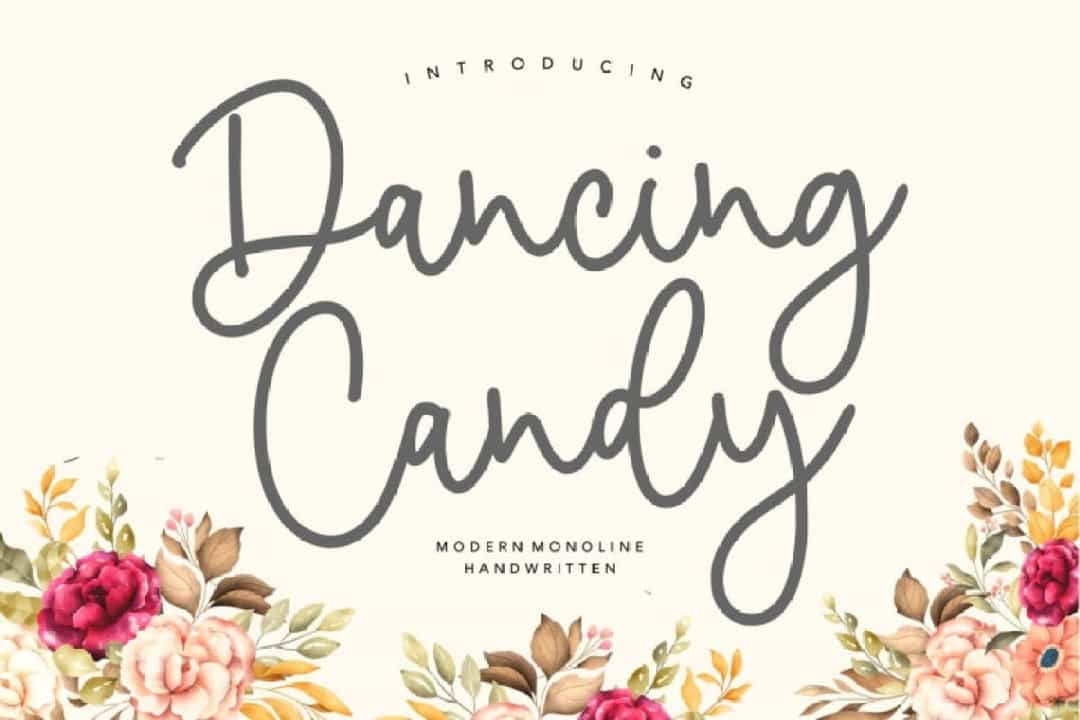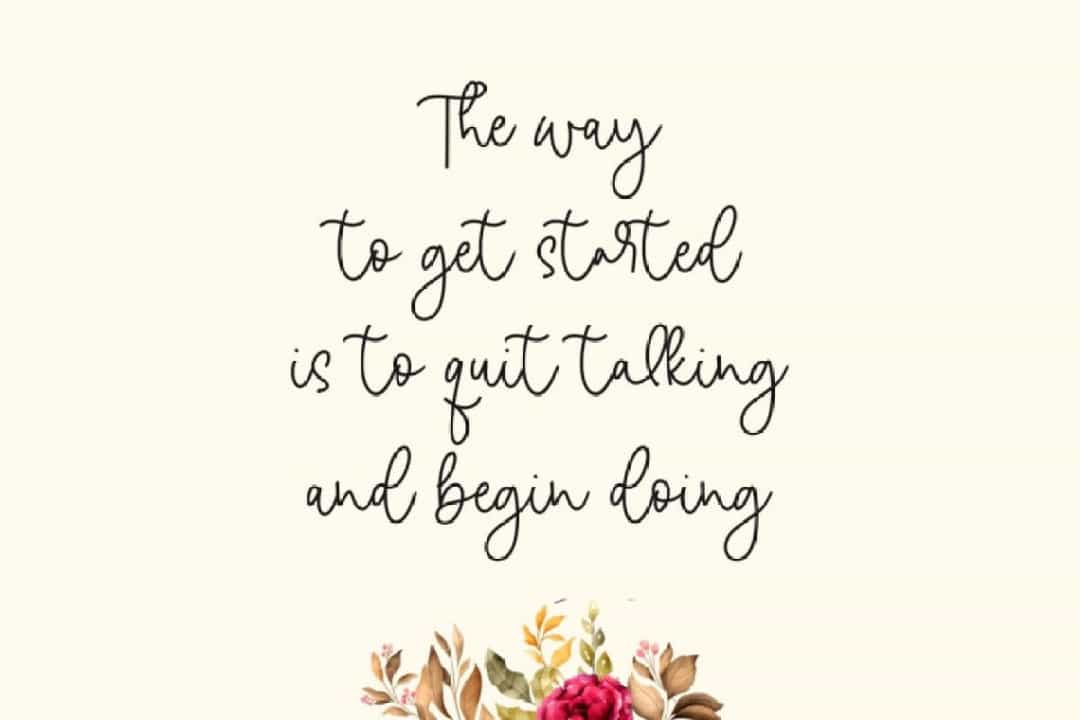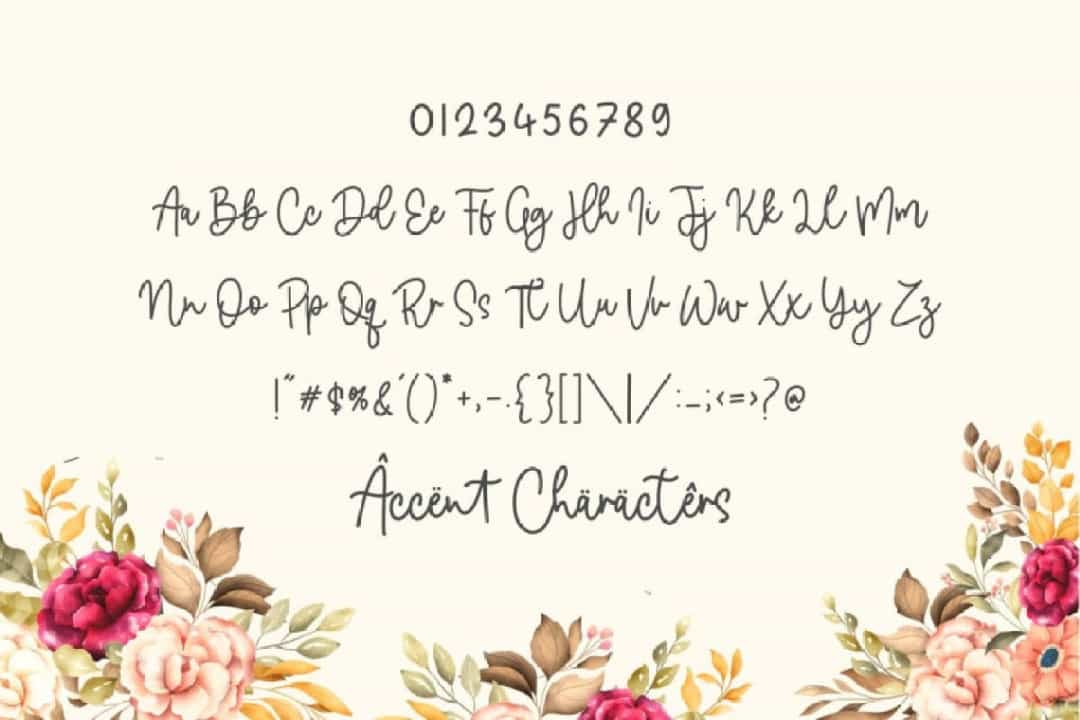
Discover Dancing Candy Monoline Handwritten Font, part of the Handwritten Script Monoline collection—a versatile and unique font perfect for adding a personal touch to your projects. Download it for free and enjoy crafting designs with style, from invitations to social media posts. This font is available exclusively for personal use, giving you the freedom to create without limits. Unlock your creativity with Dancing Candy Monoline Handwritten Font today!
Dancing Candy is a modern handwritten monoline font. Dancing Candy is perfect for packaging for products, branding projects magazine wedding, social media or to simply convey words above the background. Dancing Candy comes with TTF, Dancing Candy also supports multilingual characters.